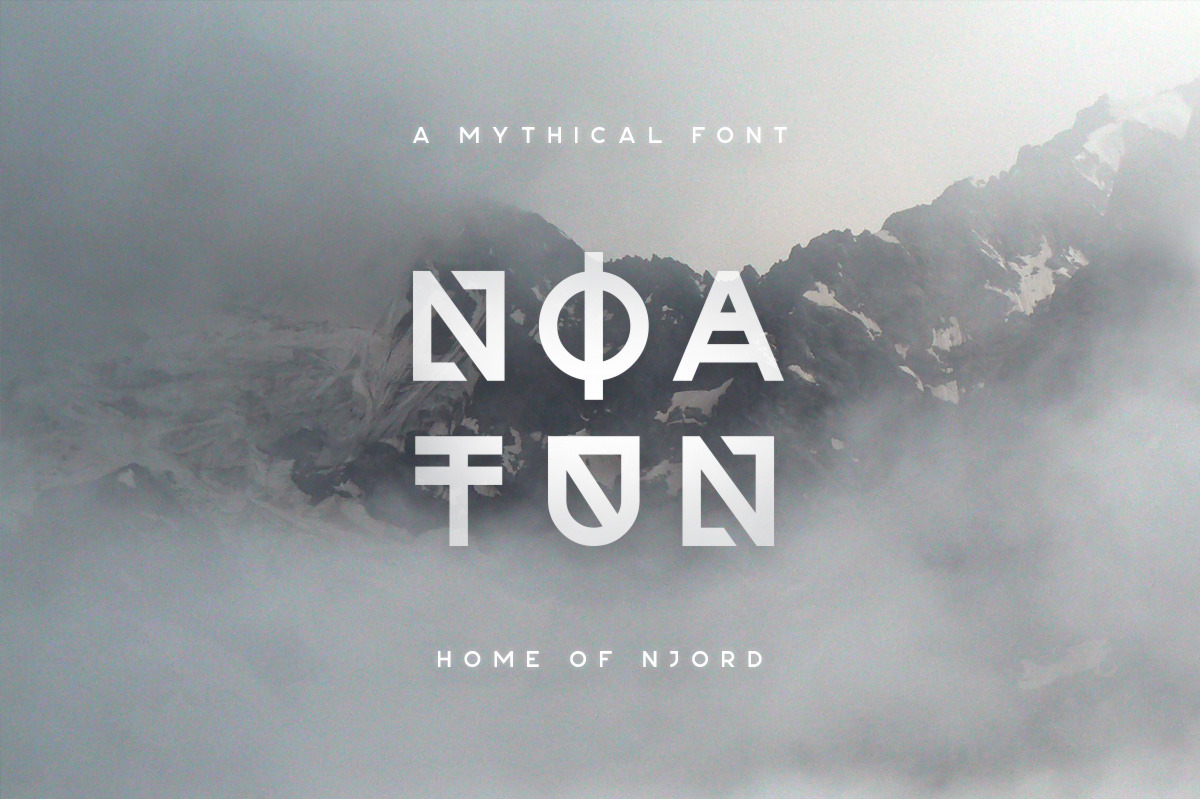
Noatun Typeface
Noatun is a strange typeface based on one of my other font families. It comes in two different versions and features a unique geometric style. It works great in titles, logos and short quotes. It includes some multilingual support, uppercase letters, numbers and punctuation.